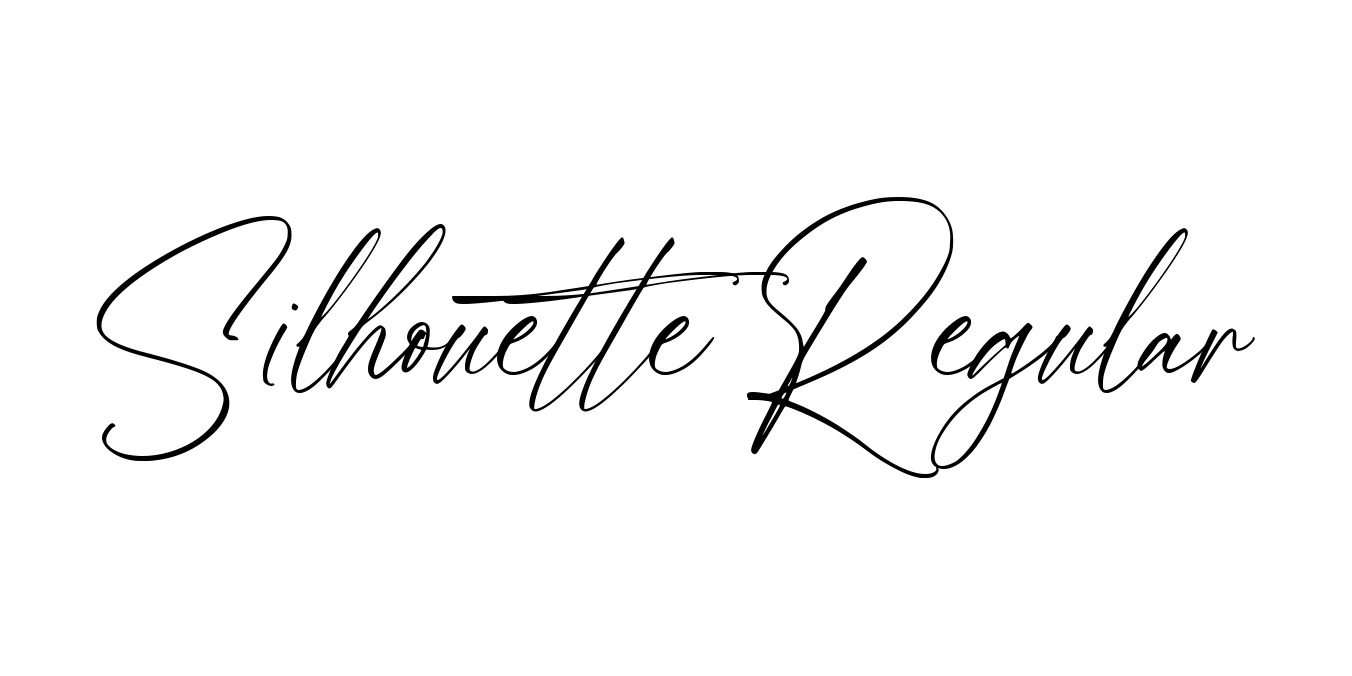
Silhouette Regular
Designed by Letterara
| Font Name | Silhouette |
| Designer | Letterara |
Silhouette Regular is an exquisitely crafted script typeface designed to capture the essence of elegance and fluid motion. Developed by the creative team at Letterara, this font family was born from a desire to blend traditional calligraphy with contemporary digital design standards, resulting in a versatile tool for modern creatives who require a sophisticated touch.
Its signature characteristics include elongated swashes and a consistent weight that provides a balanced, rhythmic feel across various applications. Since its release, Silhouette Regular has become a favorite for designers seeking to add a touch of luxury and sophistication to high-end branding projects, social media graphics, and formal stationery, bridging the gap between artistic expression and readability.
Silhouette Regular Best Uses
Creates a romantic and timeless aesthetic for formal event invites.
Perfect for fashion, beauty, and lifestyle brands seeking a signature look.
Adds a personal and sophisticated touch to heartfelt messages.
Ideal for elegant quote overlays and aesthetic lifestyle posts.